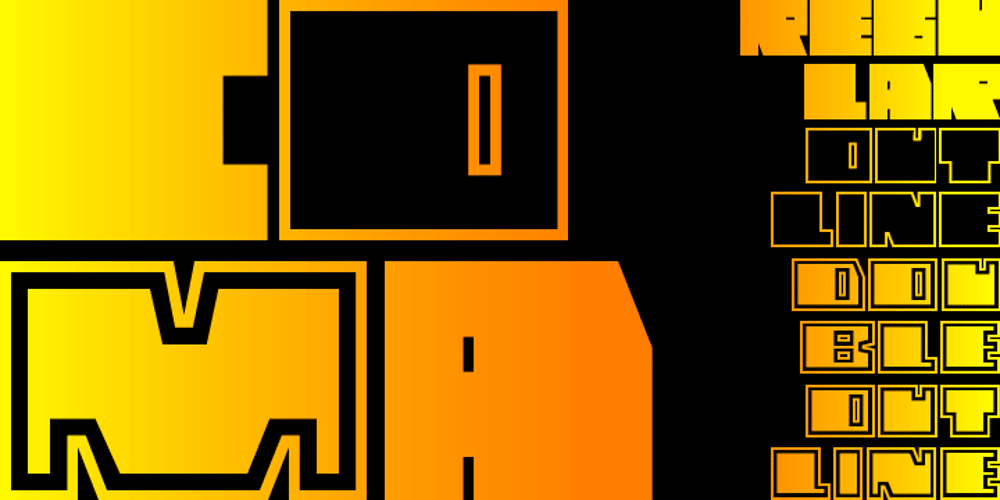
Coma Font Family was designed by Jörg Herz, Alois Ganslmeier, Andy Jörder and published by Volcano Type. Coma contains 3 styles and family package options. Originally designed by Alois Ganslmeier as a Billboard-Font, the Coma Font was later developed into a complete typeset with capitals and small letters, Cyrillic letters, Greek letters and Hebrew letters by Andy Jörder and Jörg Herz. The Coma Font is a massive constructed font which can be used for headlines. When only typed in capitals it gives the impression of blocks for there are no ascenders or descenders. The font comes alive because of its massive appearance, its edgy form and the opulence impression when used line-by-line. Not without reason, the font is named “dick und eckig”.